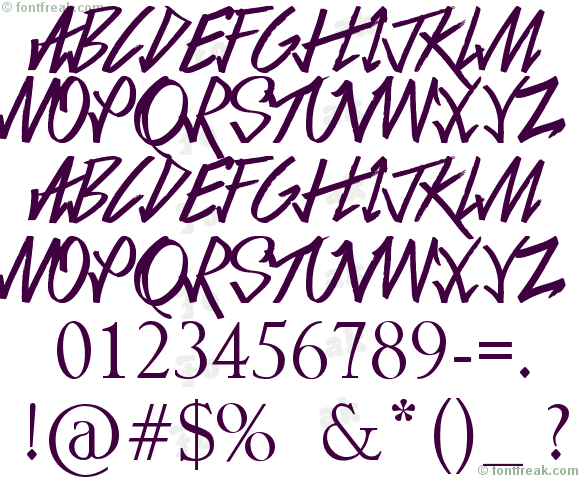
Love Sequel
The Love Sequel font, designed by Jonathan S. Harris in 2012, is a captivating display typeface that embodies a unique blend of handwritten elegance and artistic flair. This font falls into the script category, making it ideal for designs that require a personal touch. Its strokes feature a medium weight with varying contrast, showcasing a dynamic quality that adds character to each letter. The spacing is thoughtfully designed to ensure readability while maintaining a fluid, organic flow, characteristic of traditional calligraphy.
Love Sequel is particularly well-suited for a range of creative projects. It shines brightly in wedding invitations, where its romantic flair can encapsulate the essence of love and celebration. Additionally, it is perfect for movie posters that aim to convey a heartfelt narrative or evoke strong emotions. Restaurant menus can also benefit from this font, providing an inviting atmosphere that encourages patrons to explore the dining experience. Content creators and graphic designers will find it a valuable asset for social media graphics, where eye-catching visuals are essential for engagement.
Targeting graphic designers, small business owners, and content creators, the Love Sequel font free download offers a versatile solution for those seeking to elevate their visual communications. It stands out not only for its charming aesthetic but also for its ability to convey warmth and intimacy through typographic expression. Whether you're crafting a personal project or a professional piece, Love Sequel adds an unmistakable touch of creativity, making it a must-have in any designer’s toolkit. Its unique charm and thoughtful design make it a standout choice for anyone looking to make a lasting impression.